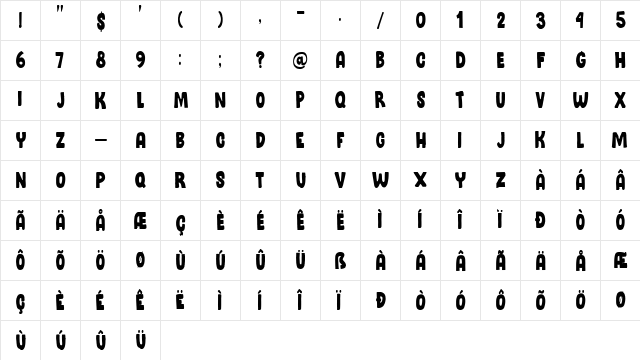
State Holiday Regular
Design Context for State Holiday Typeface
State Holiday takes a measured approach to typography — its balanced proportions and neutral character make it a reliable workhorse for both digital and print work.
Pro Tip: Use State Holiday in both headline and body roles to test its range before committing to a single application.